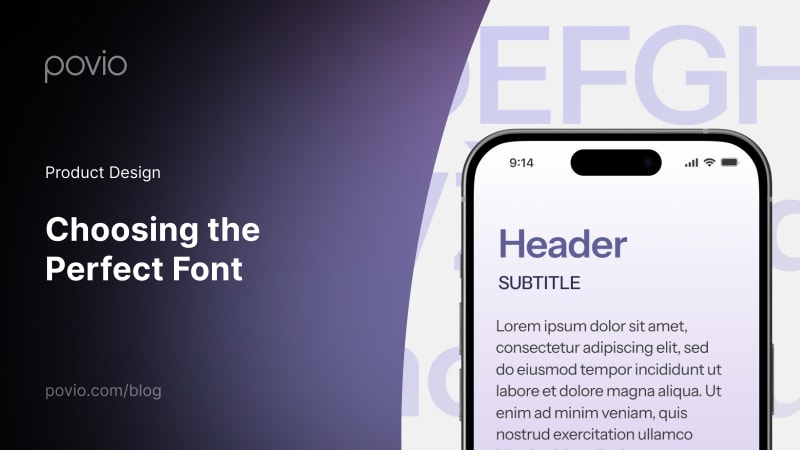
Success in mobile app development is often found in the details, and fonts are a key aspect that can make a significant difference. This post provides 8 essential questions to guide you in choosing the perfect font for your app, focusing on factors like readability, accessibility, and design flexibility. Also, it offers a list of 13 recommended fonts to enhance both the aesthetic appeal and functionality of your mobile project.